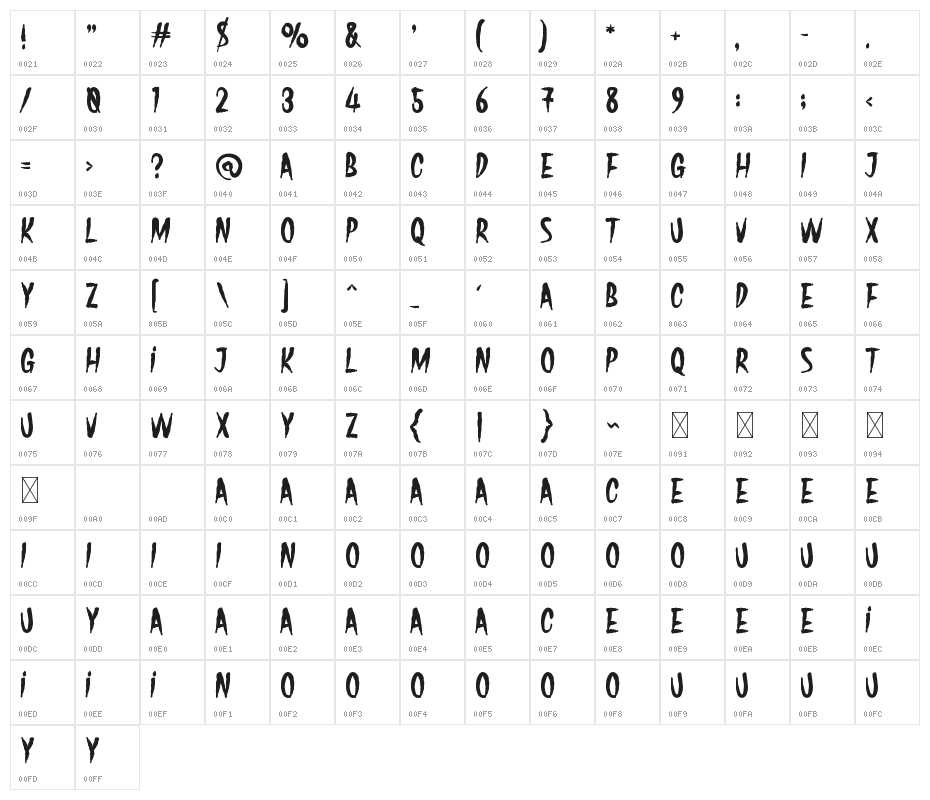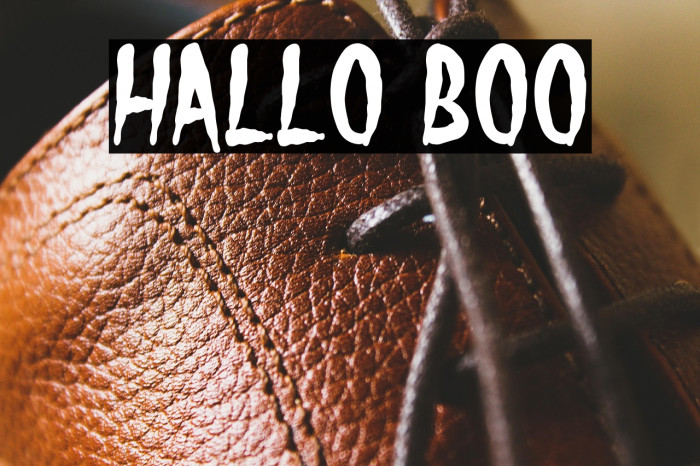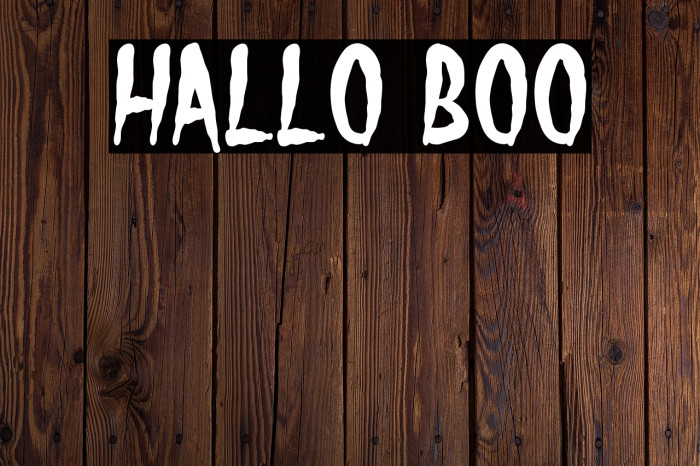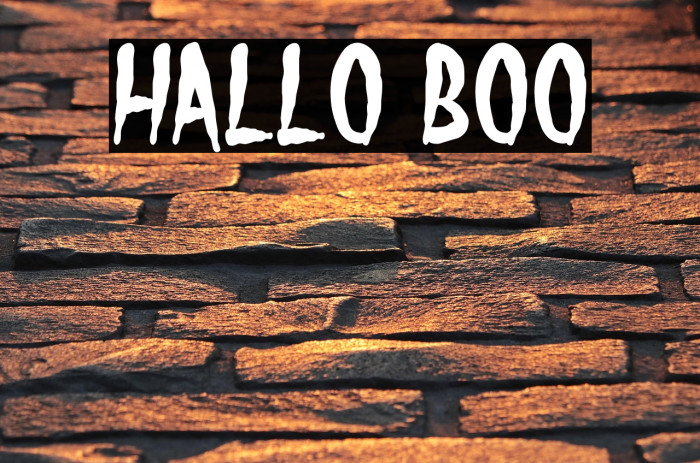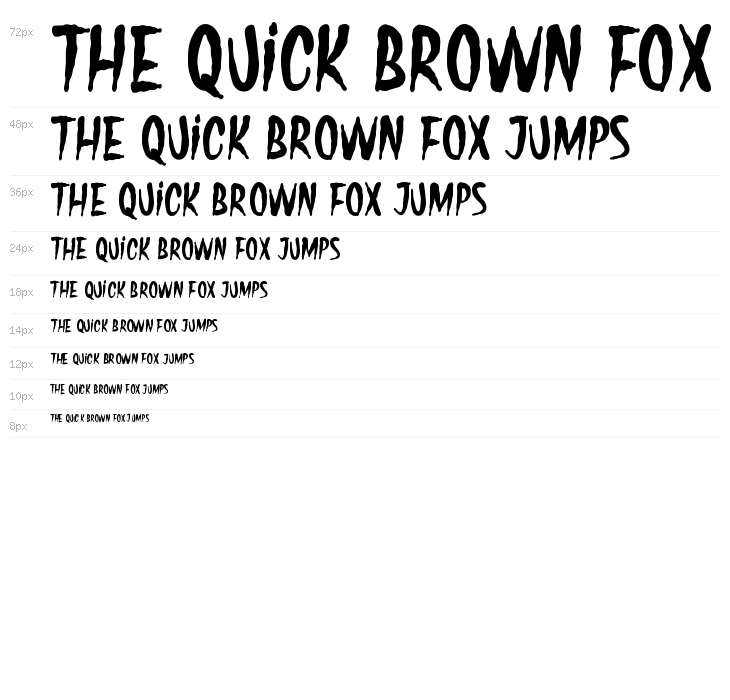
Hallo Boo Font
Hallo Boo Description
A bold, hand-drawn display font with irregular, brush-like strokes and a slightly distressed appearance, giving it an energetic and spooky feel. The characters are uppercase with some variation in width and height, and the overall look is playful yet edgy.
Overall StyleDecorative, Spooky, Playful
Use CaseHeadlines, Posters, Logos, Event Graphics
Proposed ProjectsHalloween posters, party invitations, horror-themed branding, playful event graphics, comic titles.